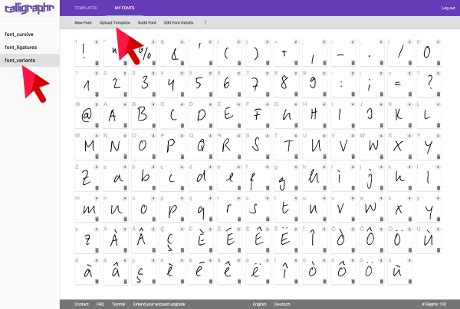
Master the Art of Typography: A Step-by-Step Guide on Uploading Your Custom Calligraphr Font to Word
Are you tired of using the same old fonts in your Word documents? Do you want to add a personal touch to your typography? Look no further! In this step-by-step guide, you will learn how to upload your custom calligraphr font to Word.
Statistics show that using unique fonts can increase reader engagement and retention. So why settle for boring Times New Roman or Arial when you can create your own custom font?
But wait, you might be thinking, I have no design experience, this sounds intimidating. Fear not, with calligraphr, creating a custom font is as easy as tracing letters on a piece of paper.
So, let's get started! First, head to calligraphr.com and create an account. Then, download and print out the calligraphr template.
Next, grab your favorite pen or marker and start tracing the letters. Remember, the more consistent your strokes, the better your font will look.
Once you've traced all the letters, scan the template and upload it to calligraphr.com. The website will generate your font for you, and even allow you to make adjustments and preview it in different sizes and styles.
Finally, download your custom font and install it on your computer. Now, open up Word and select your new font from the drop-down menu. Voila, you now have a personalized typography masterpiece!
By following these simple steps, you can elevate your document designs and impress your colleagues and clients. Say goodbye to generic fonts and hello to custom creations that showcase your personal style.
Typography is an art that adds value to any piece of writing. With the right font and design, you can make any document look more professional, appealing and eye-catching. Calligraphy-based fonts are especially popular when it comes to typography, as they offer a unique and elegant touch. One easy way to elevate your work is by uploading your custom Calligraphr font to Word. In this article, we will compare different calligraphy fonts available, discuss the process of creating and uploading custom Calligraphr font to Word, and provide our opinion on how useful it is.Comparison of Calligraphy Fonts
When it comes to calligraphy fonts, there are many options to choose from. Some of the most popular ones include:1. Callie Hand
This handwritten font is a great choice for those who want to achieve a rustic and personalized look. Its slightly slanted letters and uneven edges give it a handmade feel.2. Lobster
Lobster is a more modern take on calligraphy fonts with its bold and geometric letters. It is perfect for elegant and stylish designs, such as wedding invitations or business cards.3. Edwardian Script
Edwardian Script is a classic and timeless font that emulates traditional handwriting. Its ornate and flowing letters make it a top choice for formal documents, such as certificates or awards.Creating Your Custom Calligraphr Font
If you cannot find a calligraphy font that suits your needs, you can create your own with the help of the Calligraphr website. Follow these steps:1. Download the Calligraphr template.
The template consists of a series of boxes where you can draw your letters using a pen or marker. Try to keep your letters within the given box and make sure they are big enough to be readable.2. Scan or take a photo of your template.
Make sure the image is clear and high-resolution, so that it can be easily recognized by the software. You may want to adjust some contrast or brightness settings if necessary.3. Upload your scanned template to the Calligraphr website.
The website will recognize each of your letters and create a digital version of your font. You can preview and adjust it until you are satisfied with the outcome.Uploading Your Custom Font to Word
Once you have created your custom font, you can upload it to Word in just a few steps:1. Save your font file to your computer.
It should have a .ttf or .otf extension, depending on your preferences.2. Open Word and go to the font menu.
Click on More Fonts and then Customize Fonts.3. Click Add and select your font file.
You should also name your font and choose a script category.4. Click OK and start using your font.
It should now appear in your font list, alongside other default and installed fonts.Our Opinion on Custom Calligraphr Fonts
We believe that custom Calligraphr fonts are a great asset for anyone who takes typography seriously. By creating your own font, you can showcase your creativity and express your personal brand through your writing. It is also a fun and interactive way to improve your calligraphy skills and experiment with different shapes and styles. Finally, uploading your custom font to Word is a quick and easy process that can significantly enhance the look of your documents. However, it is important to remember that calligraphy fonts are not suitable for all occasions and audiences. Before using them, consider the purpose and tone of your text, and make sure it matches your font choice.Conclusion
Typography is a powerful tool that can make your work stand out. By mastering the art of calligraphy and creating your custom Calligraphr font, you can add an extra layer of elegance and uniqueness to your writing. We hope this step-by-step guide has been helpful and inspiring, and that you will soon start experimenting with different fonts and designs. Happy writing!Thank you for taking the time to explore the world of typography with us. By mastering the art of typography, you can transform your written content into a visual masterpiece that captures your audience's attention. We hope this step-by-step guide on uploading your custom Calligraphr font to Word has been helpful in unleashing your creativity and unleashing the limitless possibilities of typography. Remember, practice makes perfect, so keep experimenting and perfecting your skills. Happy designing!People Also Ask about Master the Art of Typography: A Step-by-Step Guide on Uploading Your Custom Calligraphr Font to Word:
- Click on Upload Fonts and select your custom font file.
- Your custom font will now appear in the Fonts dropdown menu and you can use it in your Word documents.